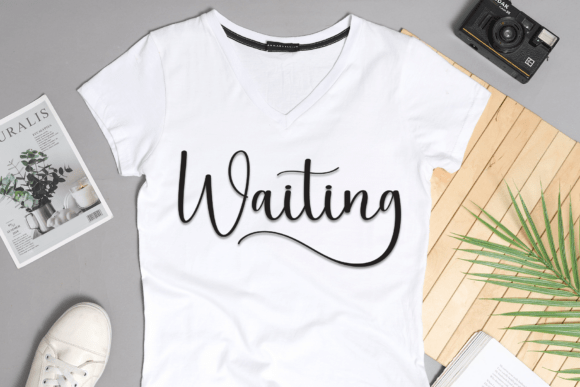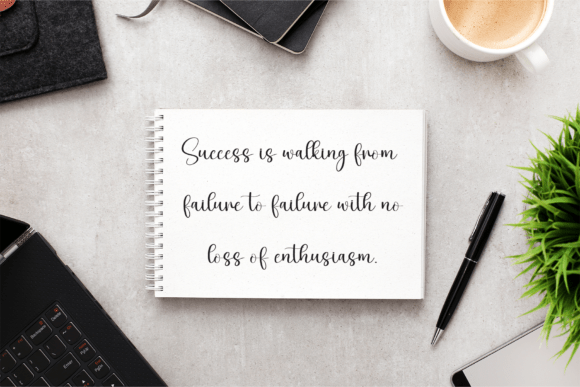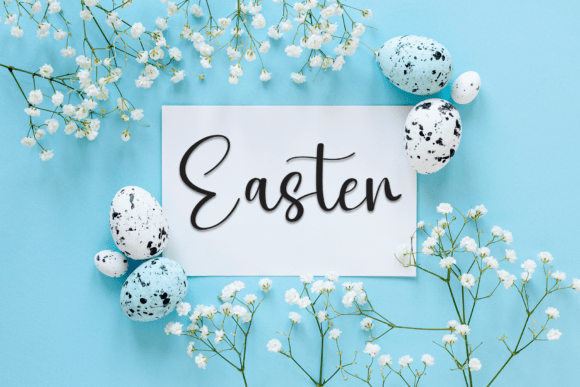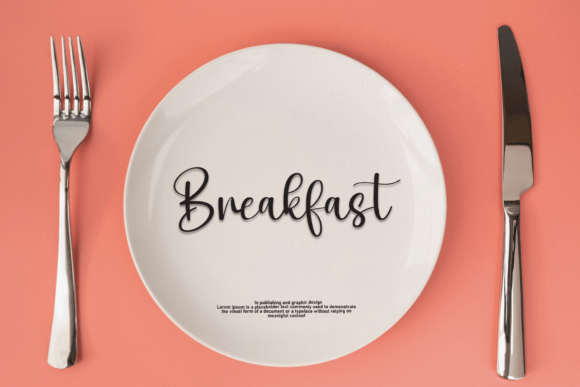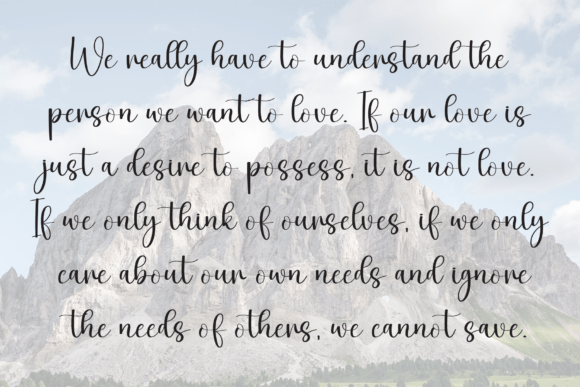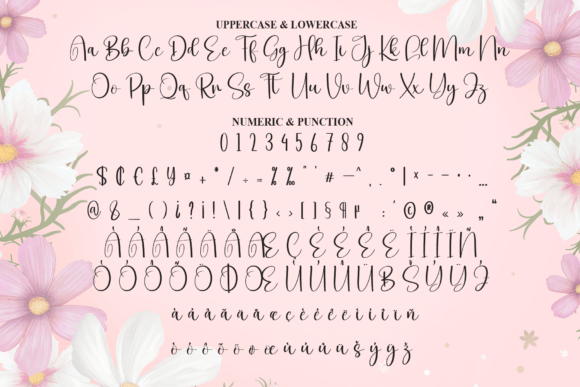
Unleash the Magic of Handcrafted Charm
Imagine you’re sitting at your desk, surrounded by colorful paper, glue, and paint, getting lost in the creative process of designing a heartfelt wedding invitation. The sound of scissors cutting through paper, the smell of freshly cut flowers, and the joy of bringing a loved one’s special day to life. This is the moment when your design truly comes alive, and you need the perfect font to match the love and care you’ve put into it.
Enter the Bonita Beauty Font, a charming handwritten display font that captures the essence of handcrafted appeal. With its sweet and friendly character, this delightful typeface is perfect for adding a touch of whimsical charm to your design projects. Whether you’re a professional designer or a crafty enthusiast, the Bonita Beauty Font is a valuable addition to your toolkit, allowing you to infuse a dash of joy and personality into every stroke.
Bonita Beauty Font Key Features
- Unique Characteristics: This elegant script font features flowing connections, delicate flourishes, and subtle texture, making it perfect for creating beautiful and sophisticated designs.
Bonita Beauty Font Review
As a designer, I had the opportunity to work with the “Bonita Beauty Font” and here’s my honest review.
The Bonita Beauty Font is a lovely, elegant script font that is perfect for adding a touch of sophistication to any design project. The font is highly customizable, allowing you to adjust the font size, color, and style to fit your needs. The font also includes a wide range of characters, including ligatures, swashes, and ornaments, making it perfect for creative and artistic projects.
- Wide range of characters
- Elegant and sophisticated
While the Bonita Beauty Font is a great choice for many projects, it may not be the best option for projects that require a bold or modern look. The font is quite ornate and may be overwhelming if used in excess. Additionally, the font may not be suitable for projects that require a large amount of text, as the ornate details may make the text difficult to read.
- May not be suitable for bold or modern projects
- Ornate details may make text difficult to read
Overall, I was impressed with the Bonita Beauty Font and would recommend it for projects that require an elegant and sophisticated look. However, it’s essential to use the font judiciously and balance it with other design elements to avoid overwhelming the viewer.
Use the Bonita Beauty Font for headings and titles to add a touch of elegance and sophistication to your designs.
Combine the Bonita Beauty Font with other fonts to create a unique and visually appealing typography.
Beauty and wellness branding
Fashion and lifestyle magazines